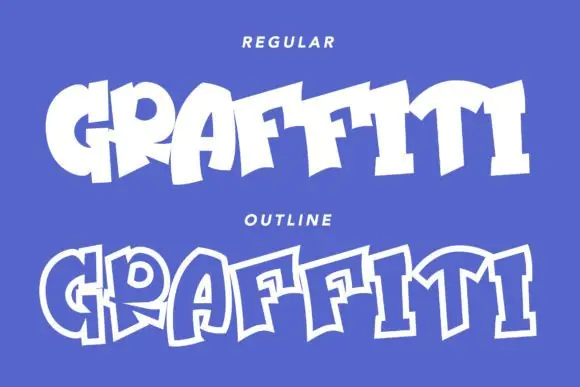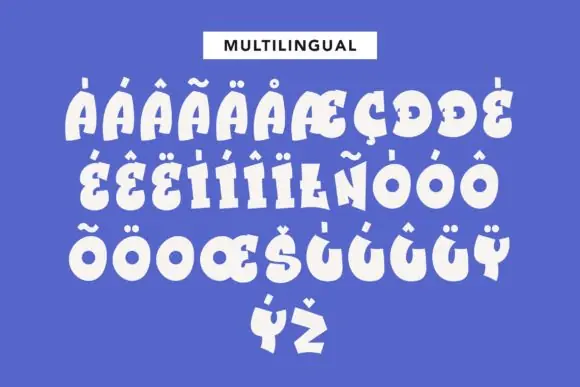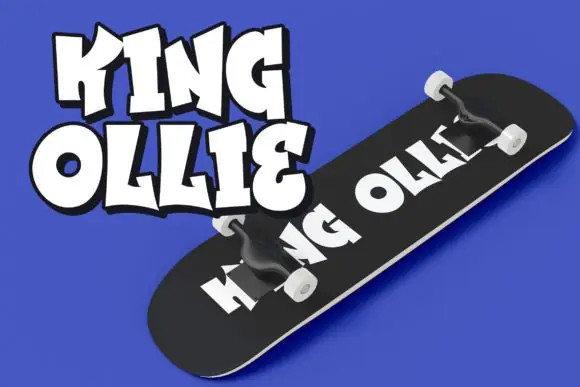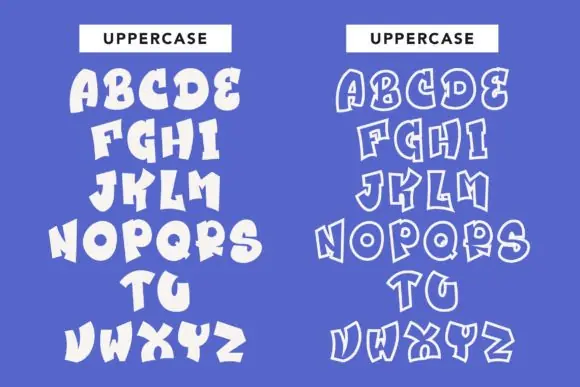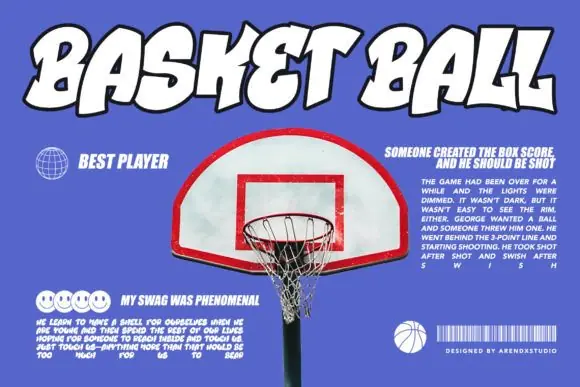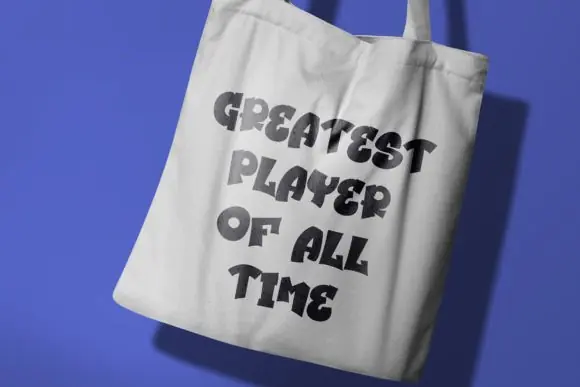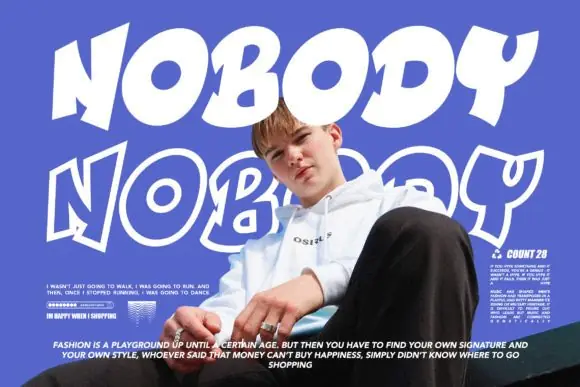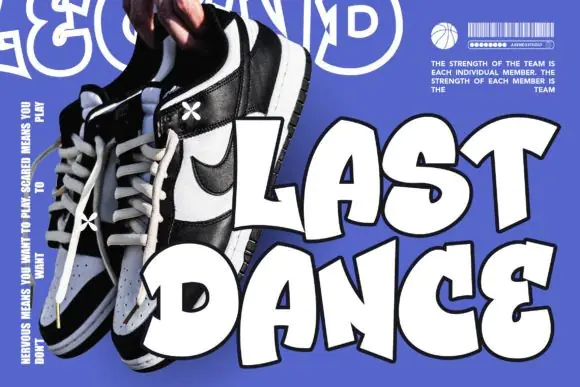
Great Dunker Graffiti Font | Freestyle Urban Street Art Display Typeface for Logos, Posters, Apparel, Stickers, Branding & Creative Streetwear Designs
Bring freedom, energy, and bold street-art character into your designs with Great Dunker Font, a freestyle graffiti display typeface made for creative projects that need an expressive urban look. Inspired by the raw movement of graffiti lettering and street culture, this font adds personality, attitude, and visual impact to every word.
Great Dunker is perfect for designers, artists, clothing brands, musicians, content creators, and print-on-demand sellers who want typography that feels bold, unique, and full of movement. Its freestyle graffiti style makes it ideal for designs that need a strong handmade street-art feel while still working beautifully as a display font.
Use Great Dunker for logos, posters, flyers, streetwear branding, t-shirt graphics, hoodie designs, stickers, album covers, social media posts, packaging, magazine layouts, event promotions, and bold typography artwork. Whether you are creating urban merchandise, music visuals, creative ads, or edgy branding, this font helps your text stand out with confidence and style.
• Graffiti-style logos
• Streetwear branding
• T-shirt and hoodie designs
• Posters and flyers
• Stickers and decals
• Album covers
• Music artwork
• Product packaging
• Magazine titles
• Event promotions
• Urban merchandise
• YouTube thumbnails
• Bold headline text
• Creative typography artwork